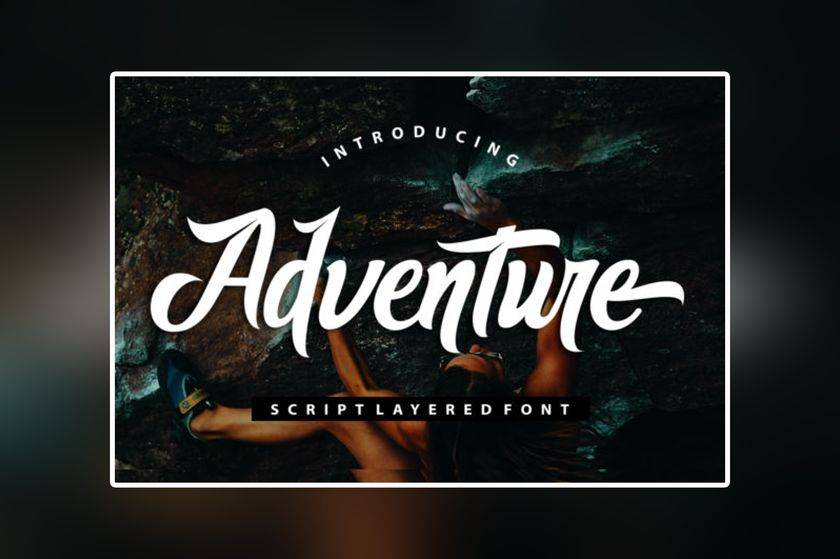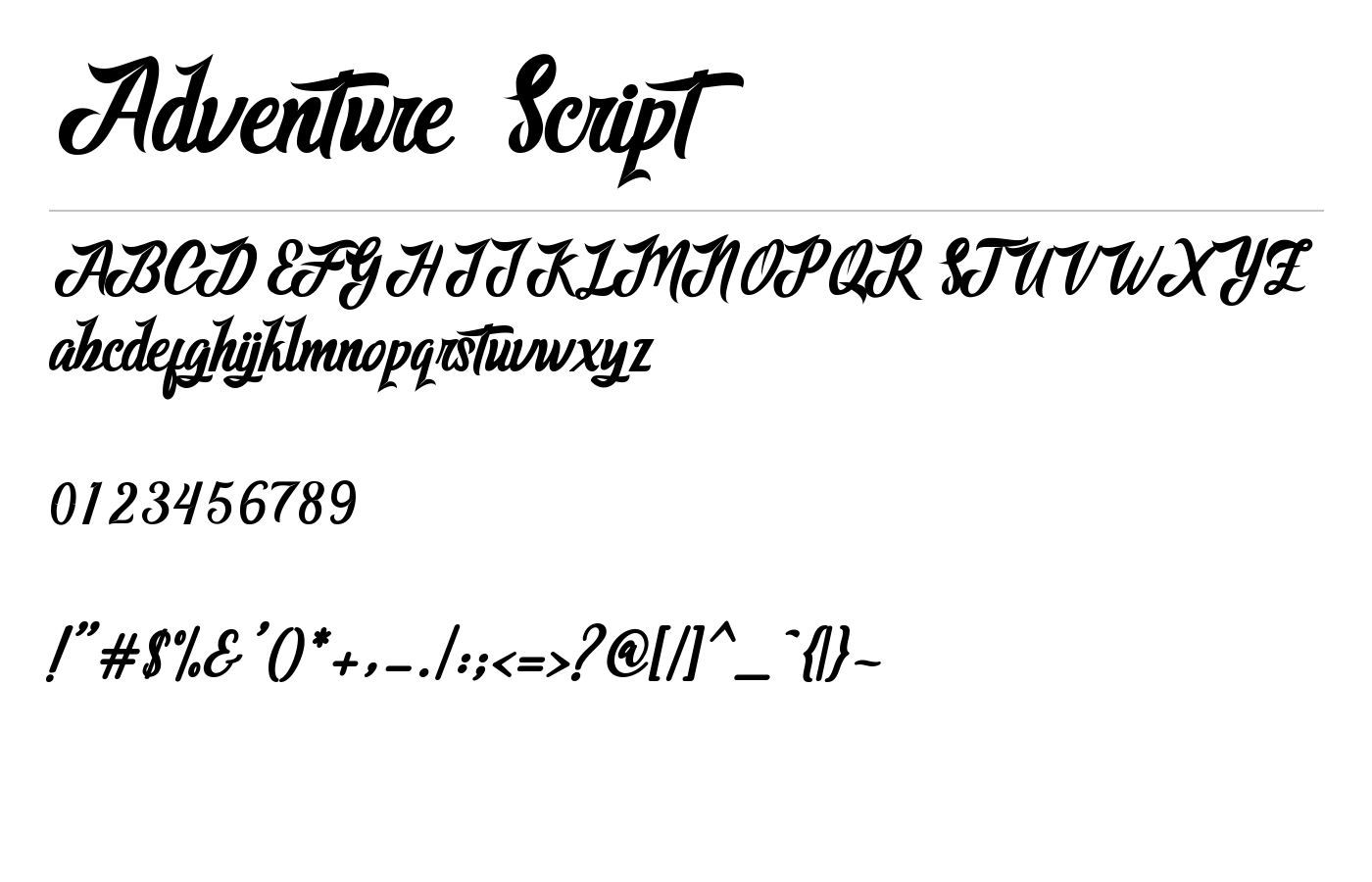
Adventure Font is a bold, stylized script typeface with a dynamic and energetic feel, featuring sharp, flowing strokes and unique letterforms that convey movement and flair. Its high contrast and slightly condensed letter shapes make it ideal for logos, headlines, and branding projects that seek a lively, adventurous, and modern personality. This font works particularly well for designs needing a touch of elegance combined with playful spirit, perfect for fashion, entertainment, and lifestyle contexts.
Adventure Font
About Adventure Font
| Font family | Adventure Font |
| Designer | Creative LAB |